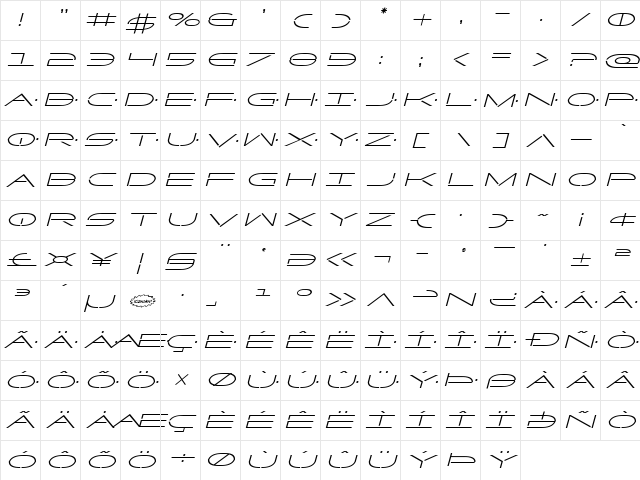
Factor Italic Italic
Design Context for Factor Italic Typeface
Factor Italic offers clean, dependable letterforms without strong stylistic allegiance, making it a practical choice for designers who need flexibility. Its italic angle brings a sense of urgency and motion to the letterforms.
Pro Tip: Try Factor Italic for annotation and caption copy alongside an upright companion — the contrast in angle creates a dynamic but ordered typographic system.